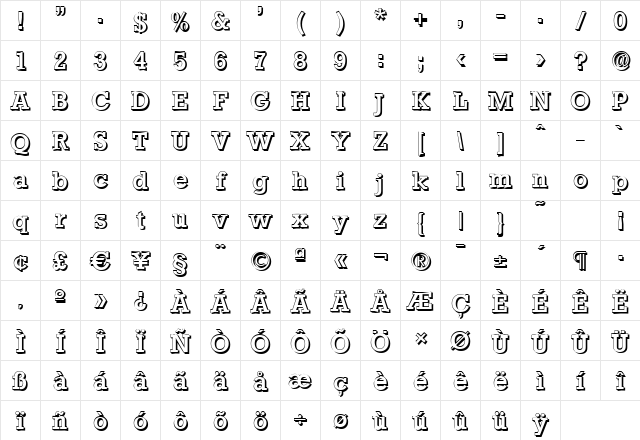
Complete EugeneBeckerShadow-Medium Regular glyph index. Displaying only characters natively supported by EugeneBeckerShadow-Medium Regular font.
EugeneBeckerShadow-Medium is built around its visual character rather than neutral utility - its distinctive forms are designed to make an impression at display sizes.
Font Pairing: Pair with a clean neutral sans-serif for body copy to let EugeneBeckerShadow-Medium's character lead without overwhelming the composition.
Pro Tip: Use EugeneBeckerShadow-Medium exclusively at display sizes - it was designed to be seen, not read at length. Let a neutral companion handle body copy.